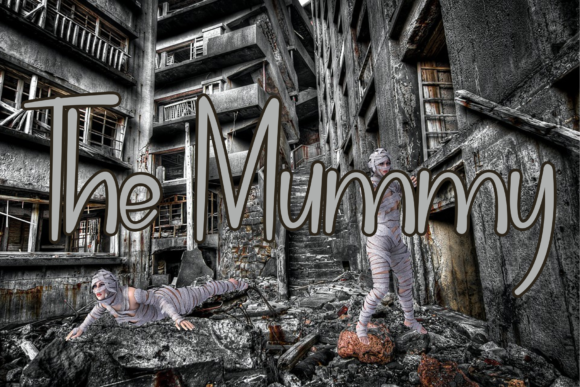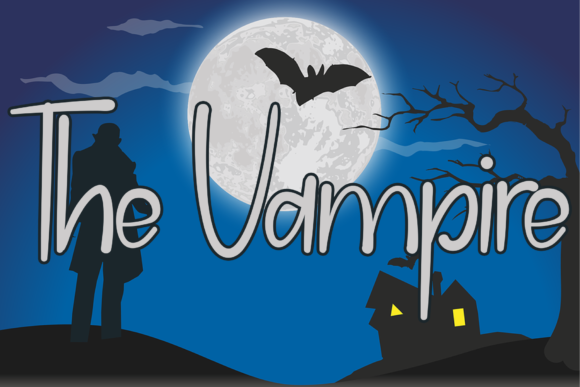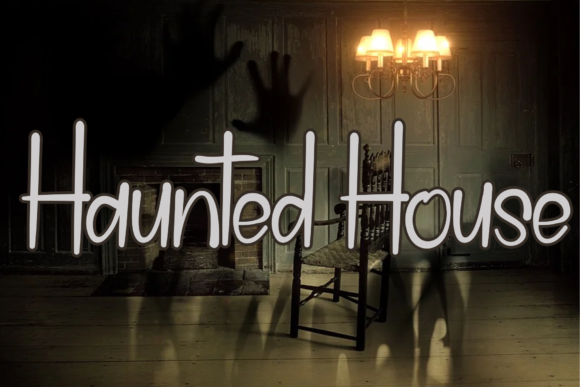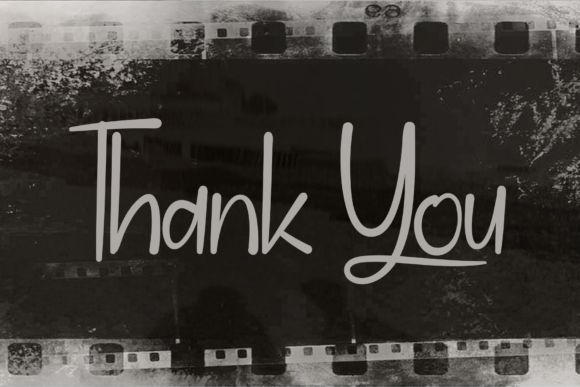
Zombie Vaccine Font
About Zombie Vaccine Font
Zombie Vaccine is a cursive and delicate script font that exudes elegance and class. This font was particularly crafted for those who need a beautiful and refreshing look to their designs.